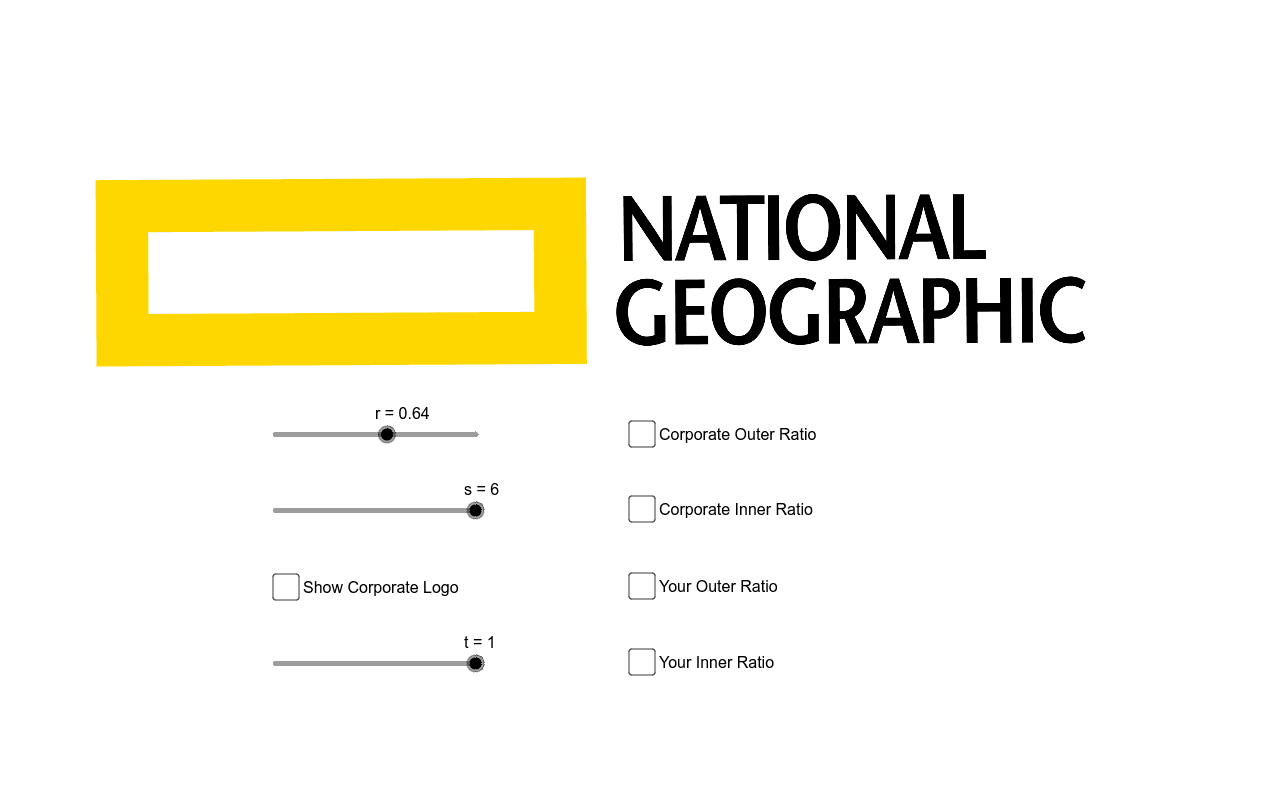
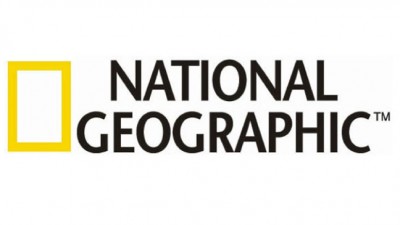
Fonts Logo National Geographic Logo Font
National geographic font generator. The fonts in use section features posts about fonts used in logos, films, tv shows, video games, books and more; English language names are approximate equivalents of the hexadecimal color codes. The font collection section is the place where you can browse, filter, custom preview and.
The url to a youtube video must be the full length url. Its wordmark is selected with a geometric and geographical style. The closest font you can get for the national geographic logo is itc stone sans std semibold font.
This is a vogue cover template online. It was designed by sumner stone as part of the wider itc stone series (serif, sans, and informal) and released during stone’s tenure. Free alternative fonts for national geographic logo:
The fonts in use section features posts about fonts used in logos, films, tv shows, video games, books and more; The yellow rectangle is a symbol that shows the characteristic “sunny” border around its edges. Gypu features a various tools and awesome symbols in mathematical, technical features.lots of.
The national geographic colors with hex & rgb codes has 2 colors which are jonquil (#ffd51c) and black (#000000). National geographic channel is an american digital cable and satellite television channel that features documentaries with factual content involving nature, science, culture and history etc. An updated version called matrix ii was released in 2007.
This color combination was created by user keshav naidu.the hex, rgb and cmyk codes are in the table below. The font used for the logo of the national instruments is itc stone sans bold. The design team worked hard to design a memorable logo for the national geographic magazine’s logo font.
The film title uses emigre’s matrix typeface. Font meme is a fonts & typography resource. Geograph, a font family comprised of 24 styles, is the lynchpin to the brand’s fresh look.
The font used for its logo is probably itc stone sans ii com condensed semibold designed by sumner stone, with slight modification on some letters. The text generator section features simple tools that let you create graphics with fonts of different styles as well as various text effects; Use the vogue cover generator for the vogue cover challenge.
National geographic legible modern wayfinding tv transport text technical stylish sterile small text simple signs signage sign serif screen design screen rigid publishing poster packaging package design package oldstyle. The title of the magazine is written with a font similar to the vogue font, called playfair display font. Fonts used should not be too small that one finds it difficult to read.